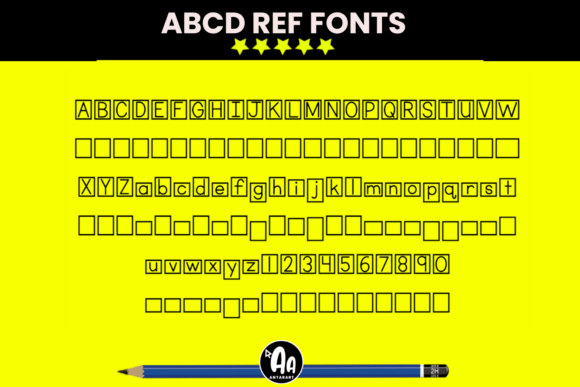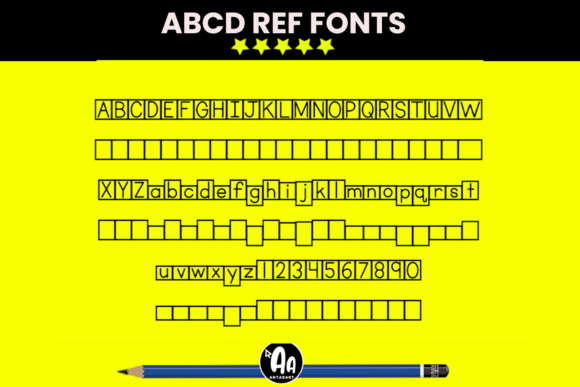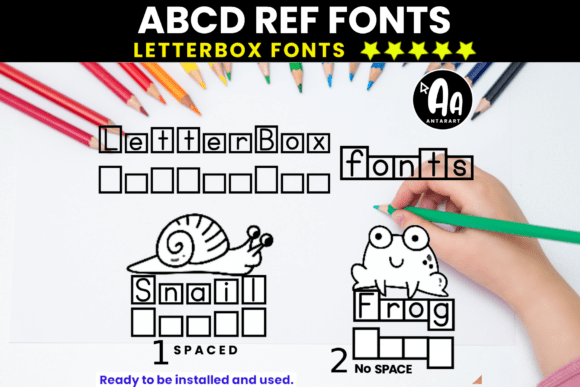
Unlocking the Power of Consistent Handwriting: 5 Advantages of the Abcd Ref Letterbox Font
When it comes to teaching young learners the fundamentals of handwriting, having the right tools can make all the difference. The Abcd Ref Letterbox Font is a game-changer in this regard, offering a unique approach to handwriting instruction through its innovative letterbox method. Inspired by the D’Nealian handwriting method, this font is specifically designed to support consistent letter sizing, improve handwriting alignment, and provide a visual guide for beginners. In this article, we’ll explore the 5 key advantages of using the Abcd Ref Letterbox Font in your teaching or homeschooling practice.
Advantage #1: Font Supports Consistent Letter Sizing
One of the most significant challenges young learners face when learning to write is mastering uniform letter height and spacing. The Abcd Ref Letterbox Font addresses this issue head-on by providing a clear and consistent visual guide. Each letter is designed to fit within a letterbox, ensuring that students learn to write with consistent sizing and spacing. This feature is particularly beneficial for early writers, as it helps them develop muscle memory and fine motor skills necessary for writing.
Advantage #2: Improves Handwriting Alignment
Proper handwriting alignment is crucial for legibility and readability. The Abcd Ref Letterbox Font features clear top, middle, and bottom zones, making it an excellent tool for teaching line awareness. By using this font, students can develop a sense of spatial awareness and learn to write with precision and accuracy. This, in turn, helps to improve their overall handwriting quality and reduces the likelihood of handwriting-related fatigue.
Advantage #3: A Visual Guide for Beginners
For early writers, the Abcd Ref Letterbox Font provides a clear and intuitive visual guide. The letterbox design helps students understand the relationships between letters and the spatial relationships within words. This visual support is especially valuable for students who are just starting to learn the basics of handwriting. By using this font, teachers and homeschoolers can provide their students with a solid foundation in handwriting and set them up for success.
Advantage #4: Perfect for Early Writers (Pre-K to Grade 2)
The Abcd Ref Letterbox Font is specifically designed for early writers, making it an ideal resource for Pre-K to Grade 2 students. At this stage, students are just beginning to develop their handwriting skills, and the letterbox method provides a gentle and supportive approach. By using this font, teachers and homeschoolers can create engaging and interactive worksheets, flashcards, and activities that cater to the needs of young learners.
Advantage #5: Print-Ready & Classroom Friendly
The Abcd Ref Letterbox Font is designed to be easy to use in a variety of educational settings. The font is print-ready and classroom-friendly, making it simple to incorporate into worksheets, flashcards, and other teaching materials. This feature is particularly valuable for teachers and homeschoolers who are short on time and need to create effective resources quickly. With the Abcd Ref Letterbox Font, you can create engaging and interactive activities that support phonics instruction, Elkonin boxes, spelling practice, word mapping, and sound boxes.
Kids’ Writing Top-Middle-Bottom Alignment Guide for Early Writers
The Abcd Ref Letterbox Font is more than just a font – it’s a comprehensive handwriting guide. The top-middle-bottom alignment guide provides a clear and intuitive visual framework for early writers. By using this guide, students can develop a deep understanding of the relationships between letters and the spatial relationships within words. This, in turn, helps to improve their overall handwriting quality and sets them up for success in their future academic pursuits.
Font Name Abcd Ref Letterbox Font
Author AntarArt
The Abcd Ref Letterbox Font is a powerful tool for teaching young learners the fundamentals of handwriting. With its innovative letterbox method, clear visual guides, and print-ready design, this font offers a comprehensive approach to handwriting instruction. Whether you’re a teacher or homeschooler, the Abcd Ref Letterbox Font is an excellent resource to have in your toolkit. By using this font, you can help your students develop consistent letter sizing, improve handwriting alignment, and build a strong foundation in handwriting. So why wait? Unlock the power of consistent handwriting today with the Abcd Ref Letterbox Font!